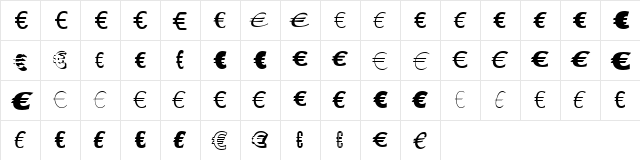
Linotype EuroFont G to P Regular
Design Context for Linotype EuroFont G to P Typeface
Linotype EuroFont G to P is a composed and adaptable typeface that performs quietly and consistently across a wide range of design contexts.